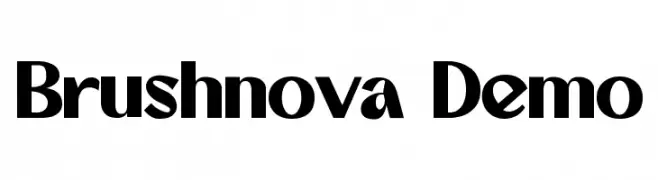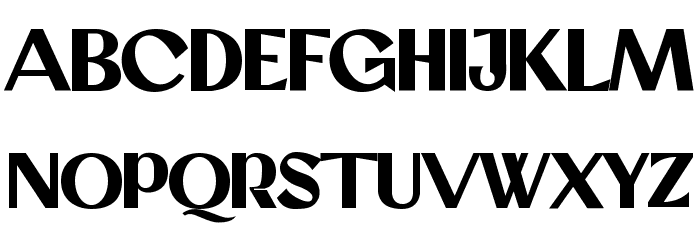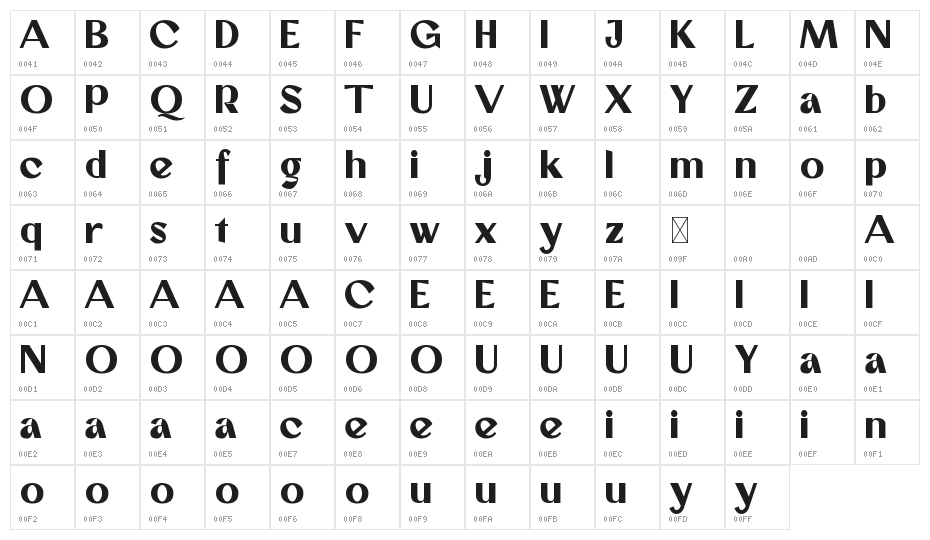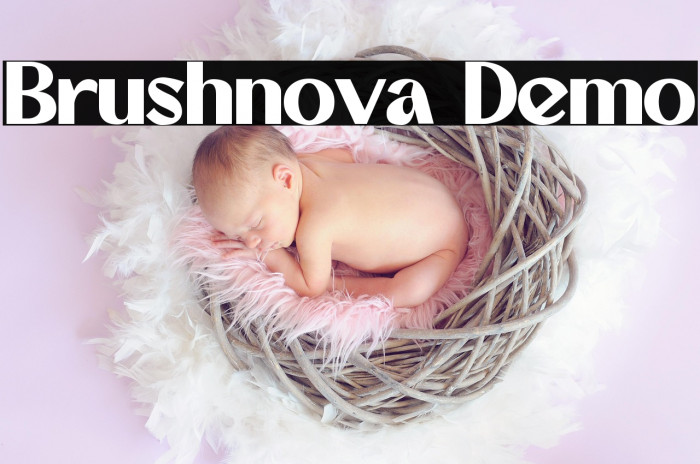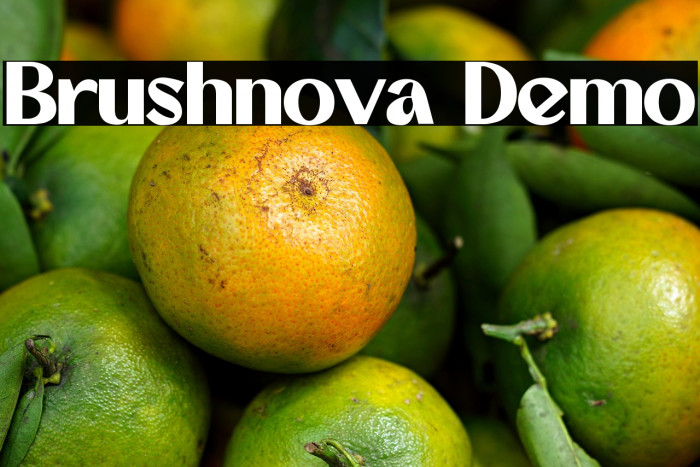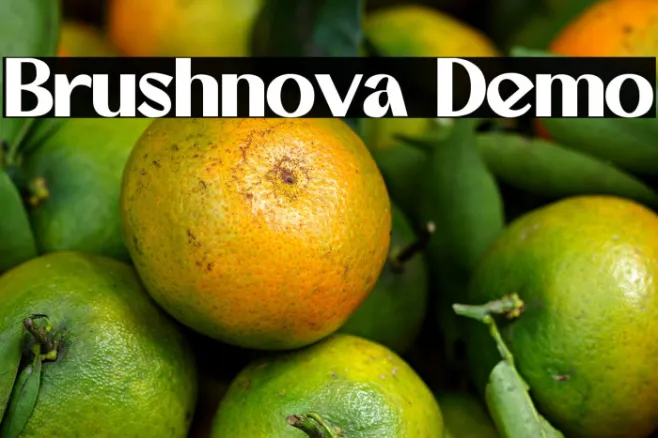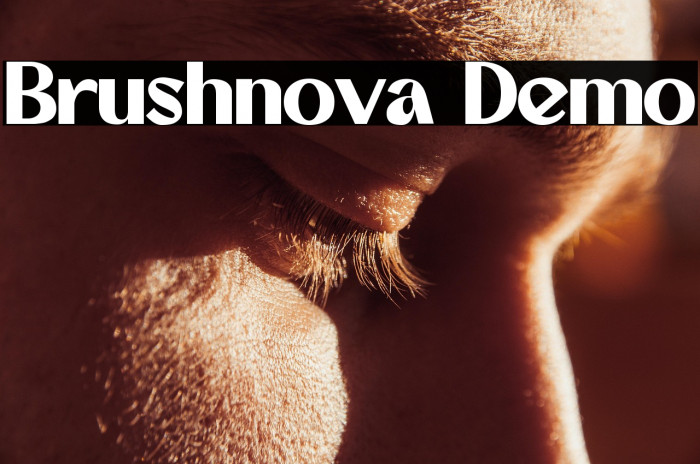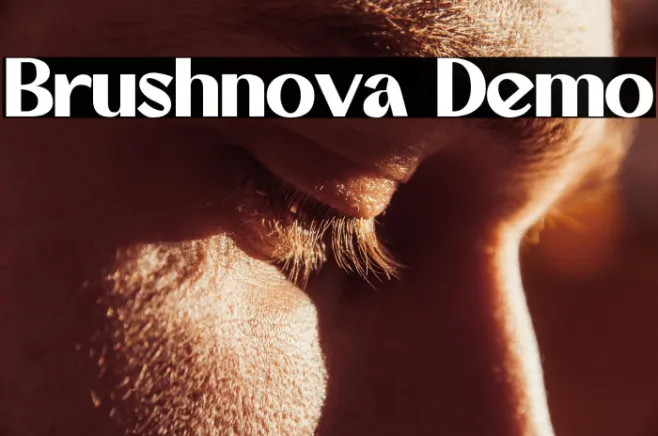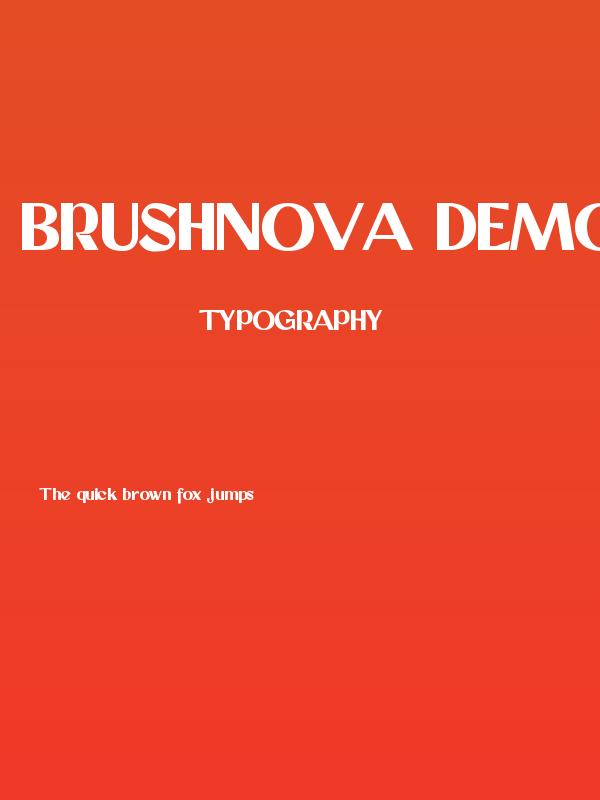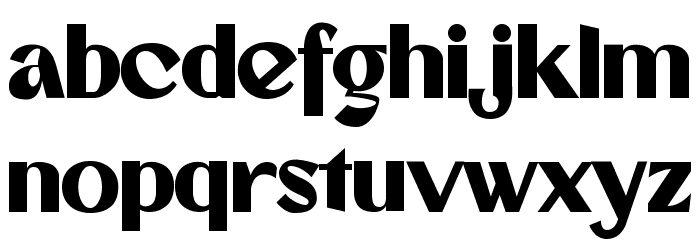
Brushnova Demo Font
Brushnova Demo Description
A bold, decorative font with high contrast and unique, angular serifs, giving it a modern and artistic appearance.
| Overall Style | Modern, Decorative |
| Use Case | Headlines, Logos |
| Proposed Projects | Logos, headlines, posters, branding materials. |